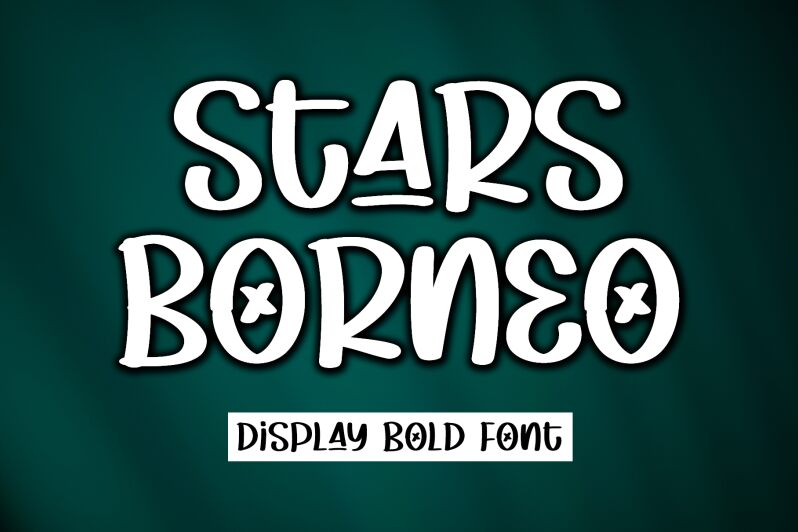
Stars Borneo font by Letterafa Studio is a contemporary and dynamic script with an eye-catching style. This font brings a whimsical and energetic feel to your projects, making it ideal for those looking to create something truly expressive and unique. Its ornamental elements add a touch of elegance, without compromising on legibility or modern appeal.
Perfect for branding, invitations, packaging, posters, headlines, social media graphics, blogs, websites, event announcements, magazines, and book covers, this font shines in both professional and personal projects. It seamlessly merges tradition with a modern edge, providing versatility across different platforms and media.